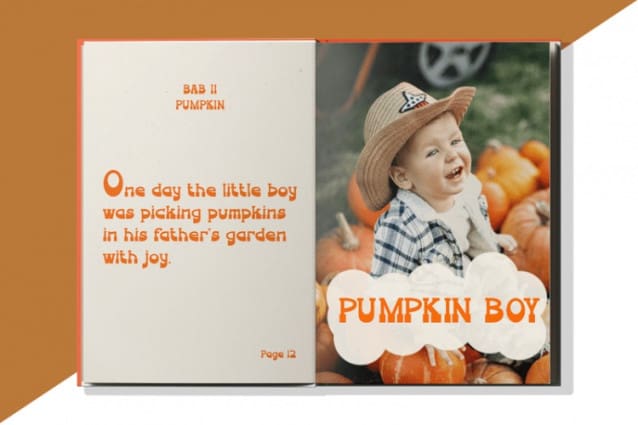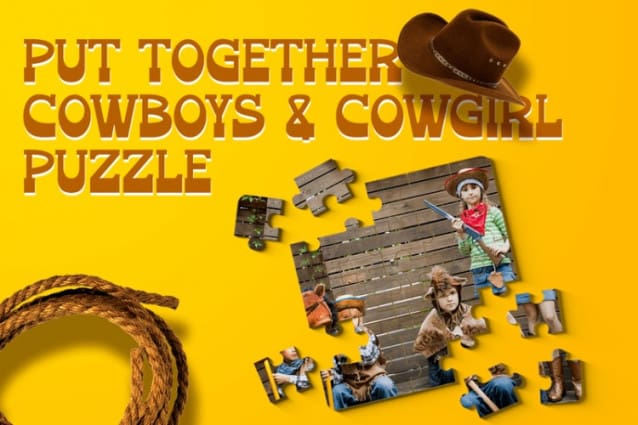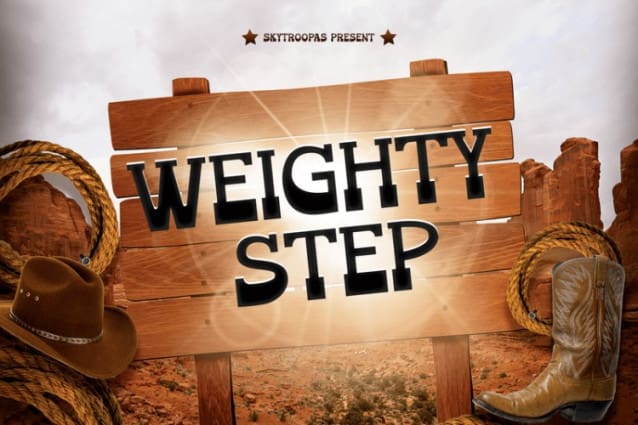
Weighty Step Font
Weighty Step is a bold and distinct typeface inspired by classic Western typography. It features strong, sturdy letterforms with distinctive serifs, creating a font that exudes both strength and elegance. As a result, each character conveys a sense of power and presence. The weighty structure of the font adds a solid and commanding feel, making it ideal for designs that need to stand out. In addition, the font combines the rugged spirit of the Wild West with modern design elements. The thick strokes and confident lines further emphasize its boldness, ensuring it captures attention in any project.
Moreover, the sharp angles and elegant curves of the font evoke vintage Western signage, adding a nostalgic touch to your designs. The strong serifs enhance its bold and reliable appearance, making it suitable for a variety of purposes. Thus, whether used for large or small-scale designs, remains legible and impactful. It is versatile enough to fit a wide range of projects, including branding, advertising, and creative designs. Its timeless appeal makes it a go-to choice for anyone looking to add a distinctive and rugged touch to their work.
Furthermore, the font’s overall design feels both classic and contemporary. It’s a perfect blend of old Western styles with modern typography, giving it a unique flexibility. Whether you’re designing a vintage-style logo or a contemporary piece with a Western influence, Western Font Weighty Step adapts seamlessly to your needs.